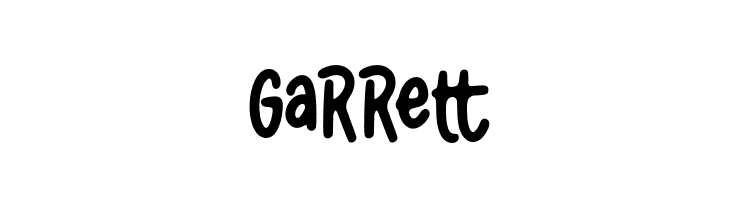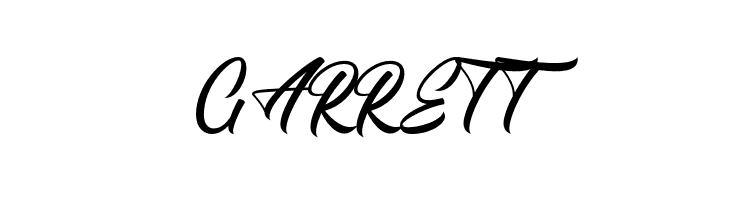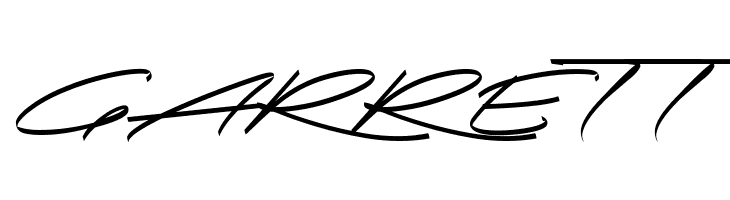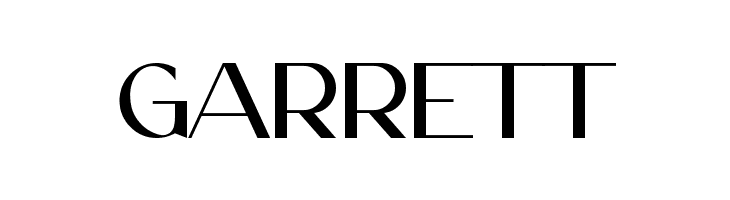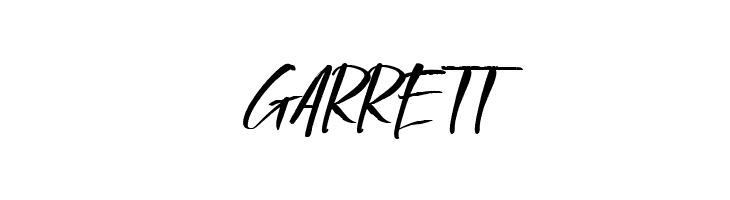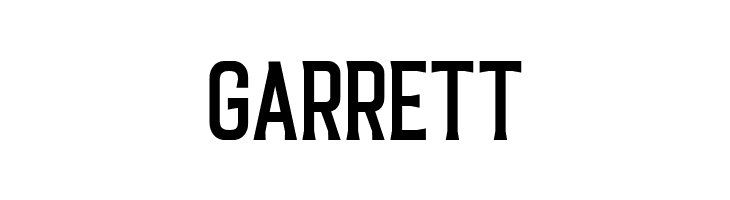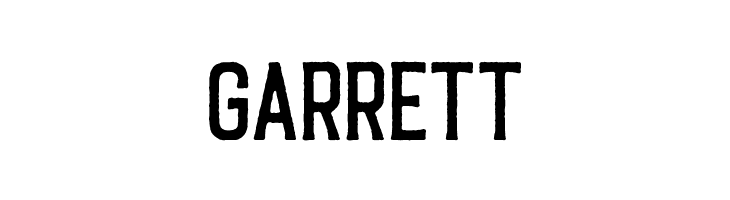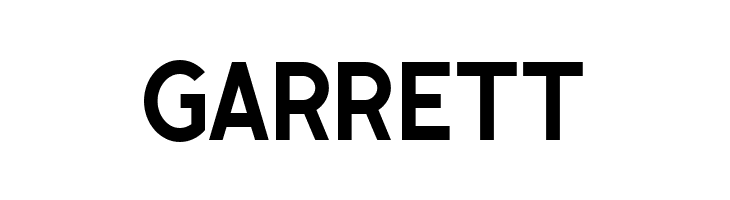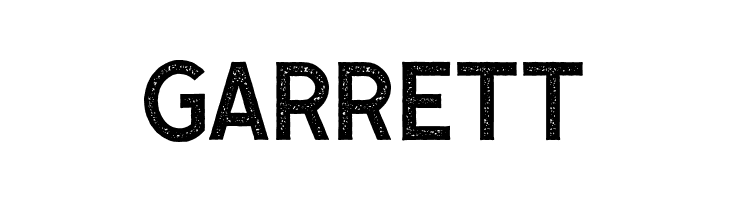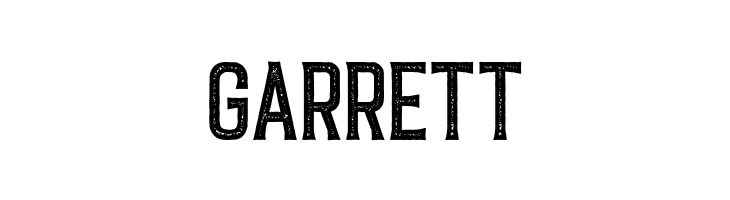
A dynamic and flowing script font with elegant cursive letterforms.
A playful, bold, and rounded font with a casual and dynamic style.
A bold, brush-style font with dynamic and expressive strokes.
A bold, cursive script font with a modern, handwritten style.
A bold, distressed font with a grunge aesthetic and high contrast.
An elegant and sophisticated script font with intricate, flowing strokes.
An expressive and dynamic handwritten font with fluid strokes.
A dynamic, cursive script font with fluid, expressive strokes.
An elegant, flowing script font with a classic calligraphic style.
A modern, handwritten font with dynamic strokes and a casual style.
A bold, expressive script font with fluid, cursive strokes and decorative swashes.
A bold, italic script font with dynamic and flowing strokes.
A flowing, cursive font with elegant, connected strokes.
A modern, high-contrast font with elegant, geometric lines.
A bold, modern font with tall, slightly condensed characters and consistent stroke thickness.
A bold, condensed font with uniform strokes and a modern, geometric style.
A bold, rugged font with a vintage industrial feel and textured edges.
A modern, bold sans-serif font with clean lines and geometric shapes.
A bold, rugged font with a vintage, handcrafted appearance.
A bold, textured sans-serif font with a vintage, stamped appearance.
A bold, distressed font with a vintage stamp-like appearance.
A bold, distressed font with a vintage, rubber stamp appearance.
A bold, calligraphic script font with elegant curves and dramatic flourishes.
A bold, dynamic script font with elegant, flowing strokes.
A dynamic, cursive font with fluid, handwritten style and varying stroke widths.
An elegant script font with flowing, cursive letterforms.
A classic calligraphic font with elegant, flowing strokes and sharp serifs.
A refined, thin script font with elegant, flowing curves.
Tall, condensed, wavy hand-drawn display font with playful distortion.
A dynamic, cursive handwritten font with fluid strokes.
An elegant script font with intricate loops and flowing cursive style.
An elegant, cursive font with flowing, decorative strokes.
A dynamic and expressive handwritten font with fluid strokes and a brush-like texture.